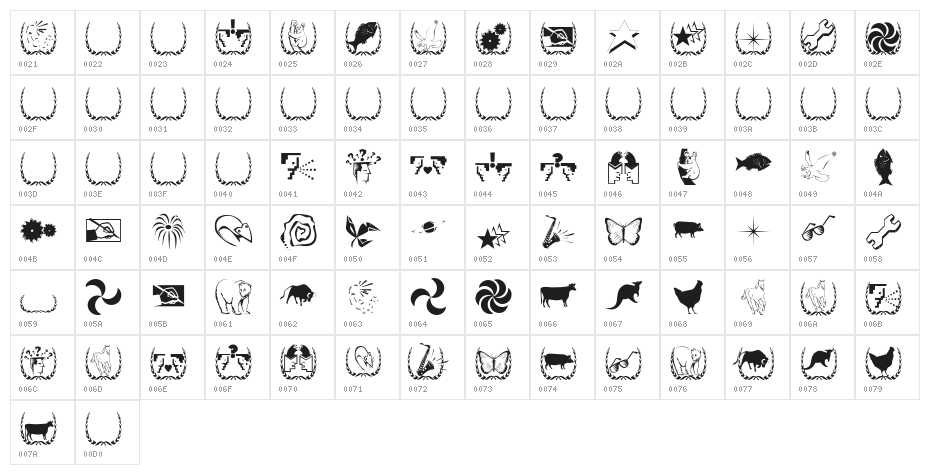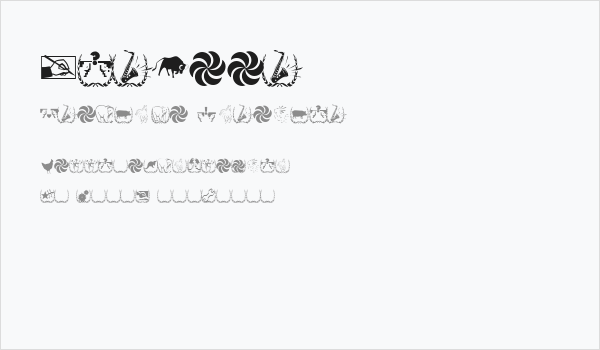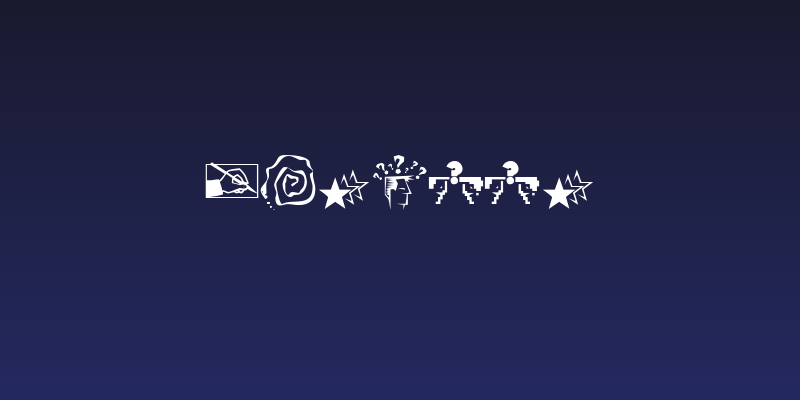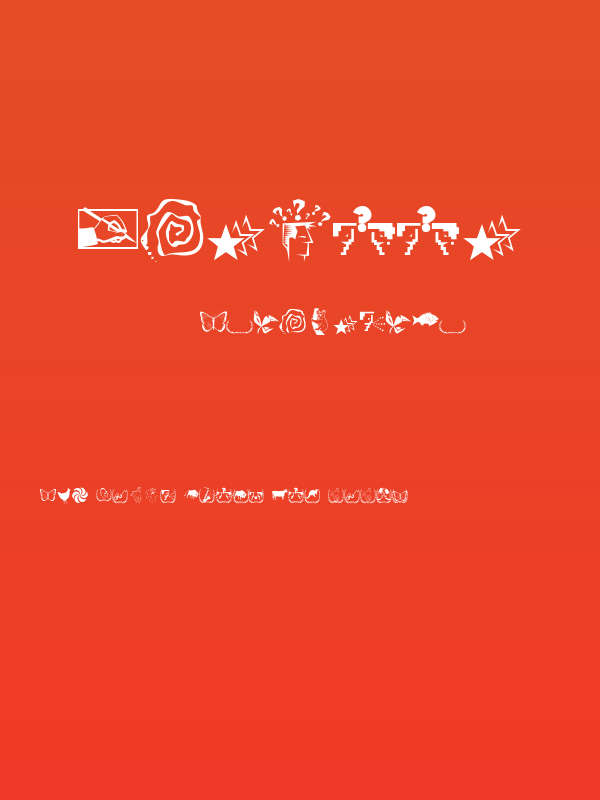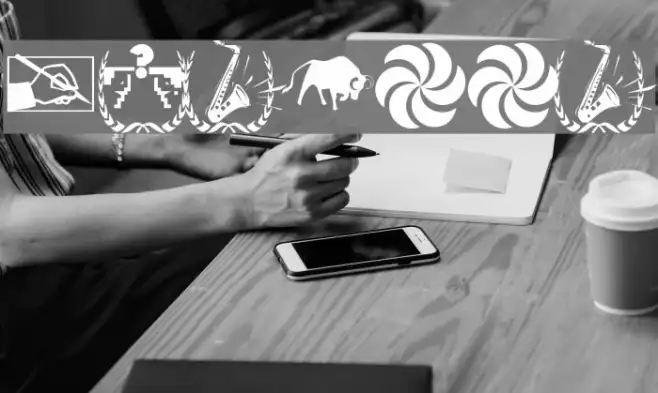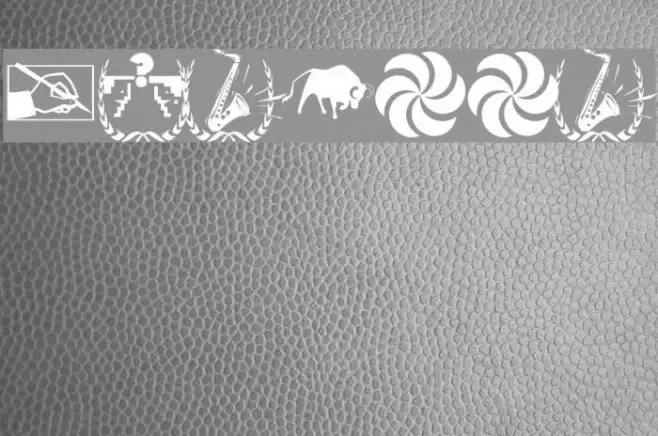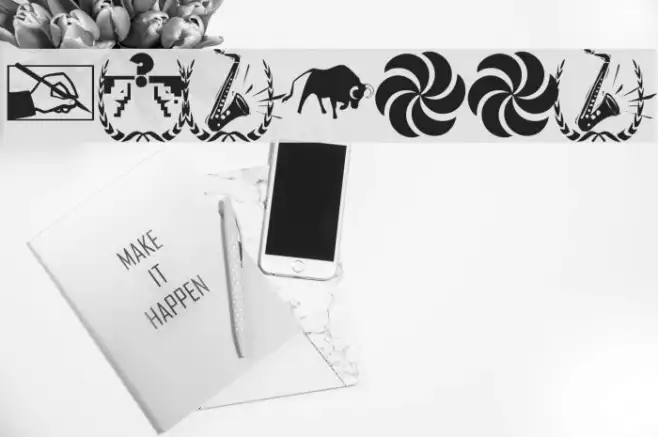
Lorbeer Font
Lorbeer Description
A decorative dingbat font featuring a variety of animal silhouettes, abstract shapes, and nature-inspired icons, often enclosed within stylized laurel wreaths or geometric frames. The glyphs are highly illustrative and detailed, with a playful and ornamental appearance.
| Overall Style | Decorative, Playful, Nature-inspired |
| Use Case | Decorative elements, Borders, Icons, Thematic illustrations |
| Proposed Projects | Children’s books, educational materials, nature-themed posters, scrapbooking, decorative borders, and logo embellishments. |